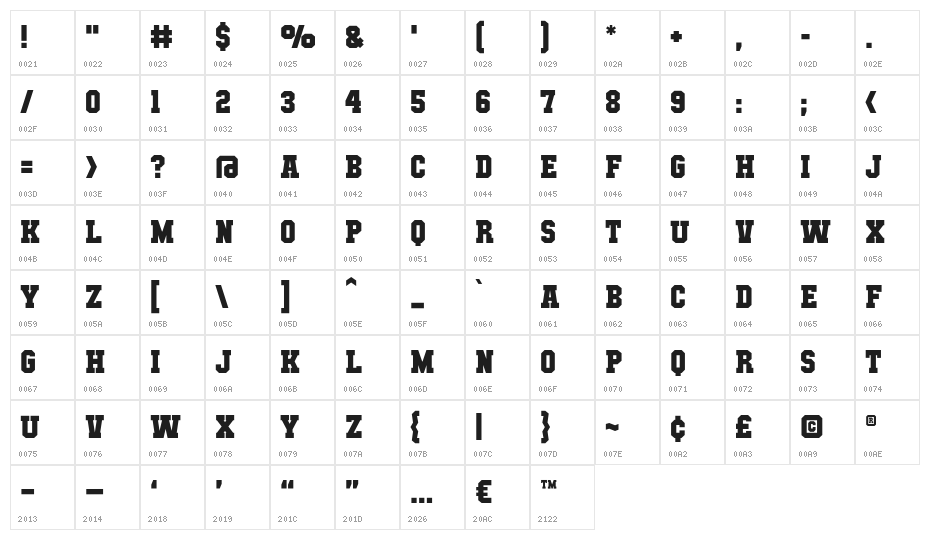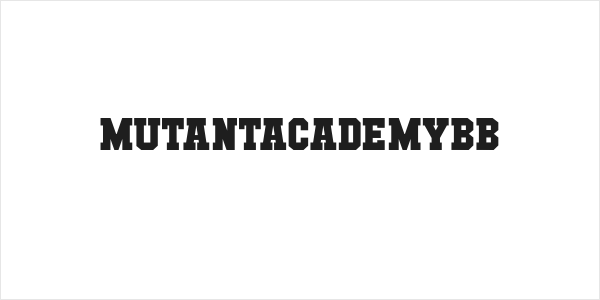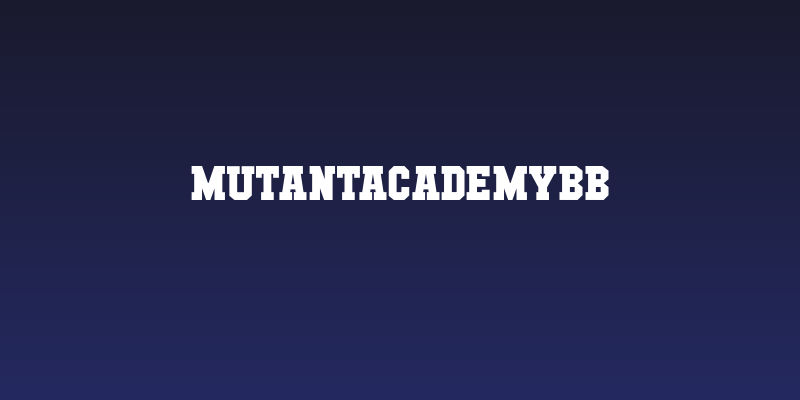
MutantAcademyBB Font
| Vorgeschlagene Projekte | Perfect for sports team branding, collegiate apparel, posters, and headlines that need a strong visual impact. |